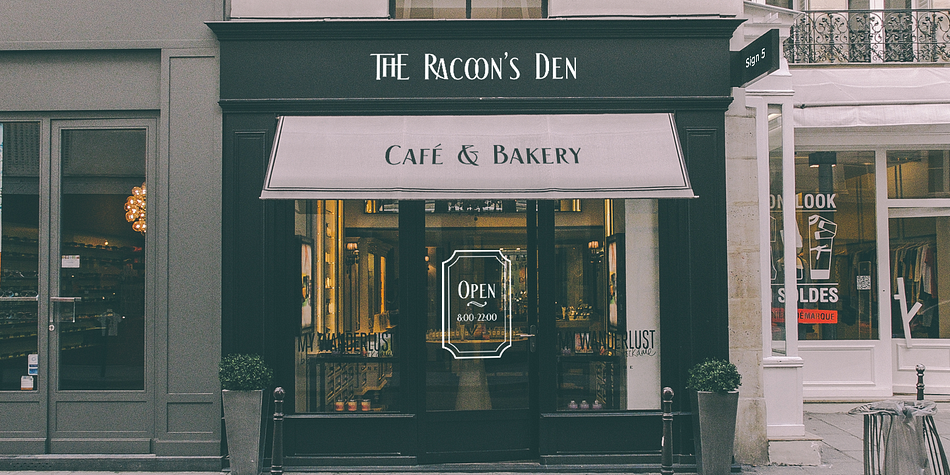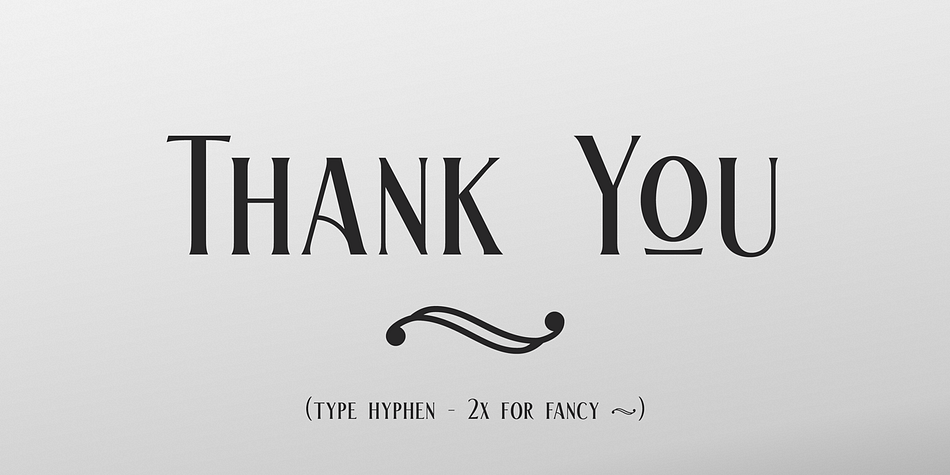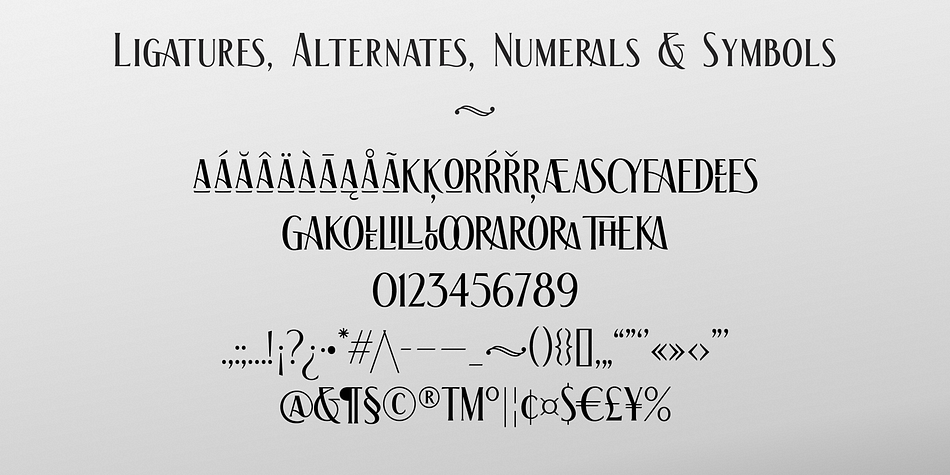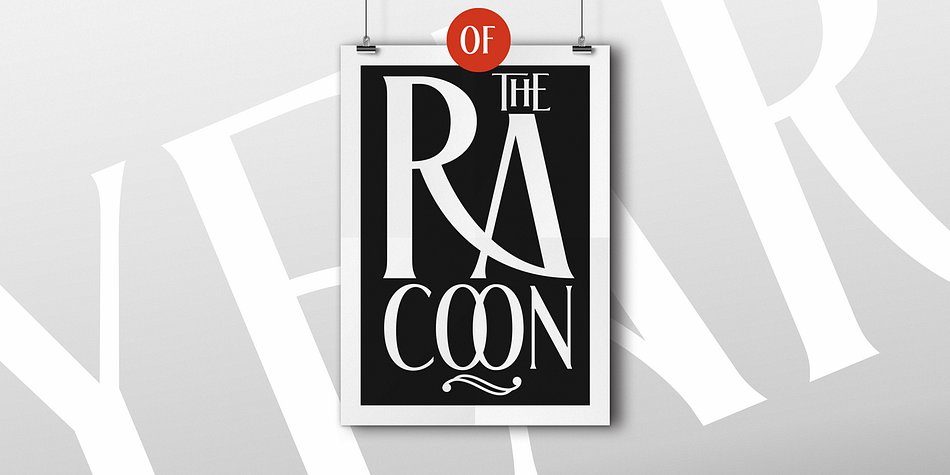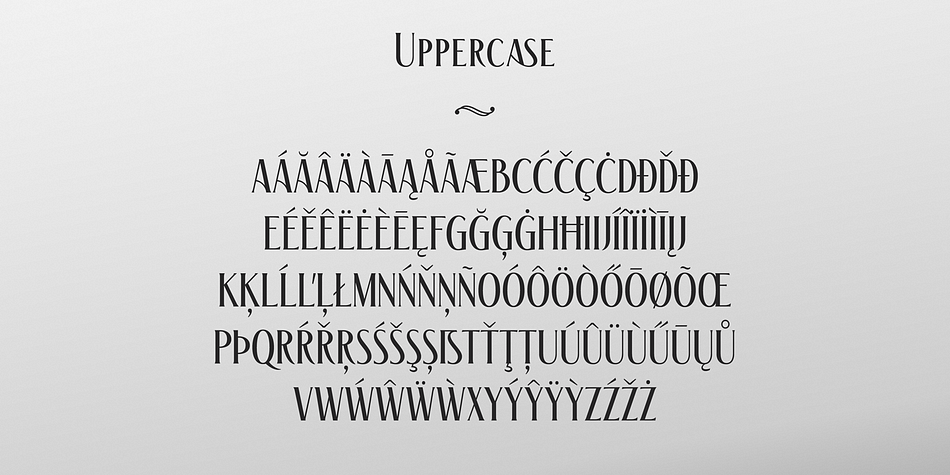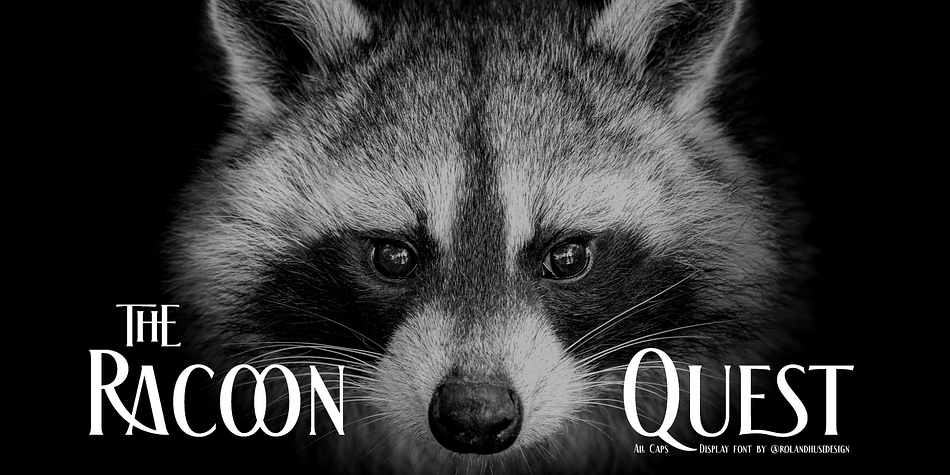
The Racoon Quest
Designed by Roland Hüse, The Racoon Quest is an art deco font published by Fonts by Roland Hüse.
The Racoon Quest is an All Caps Display Font with playful ligatures that opens possibilities for more exciting experimental typography. The font is a little Art Deco-is serif. Ideal use is large size for signages, movie or book titles and posters!
The Character set contains Western, Eastern and South Eastern European Latin languages, lowercase letters are small caps. There are stylistic alternates and ligatures for both upper and lowercase letters.